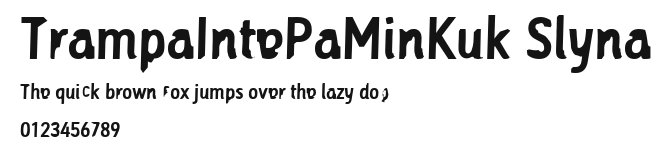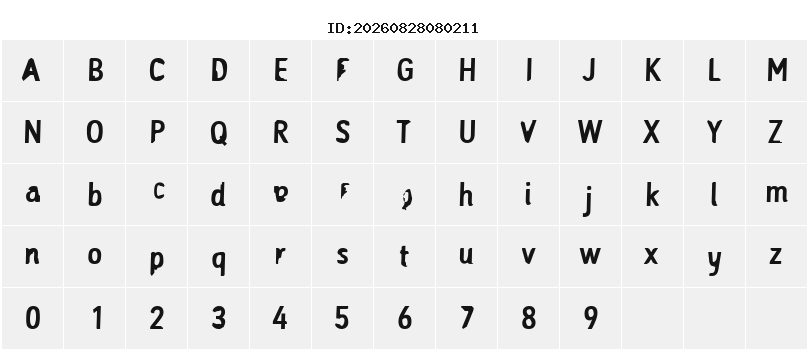
• Font Name: TrampaIntePaMinKuk Slyna
• Full Font Name: TrampaIntePaMinKuk Slyna
About TrampaIntePaMinKuk Slyna.ttf
TrampaIntePaMinKuk Slyna.ttf is a modern, elegant sans-serif font designed for ultimate readability and visual harmony. Perfect for branding, headlines, web design, and print materials.